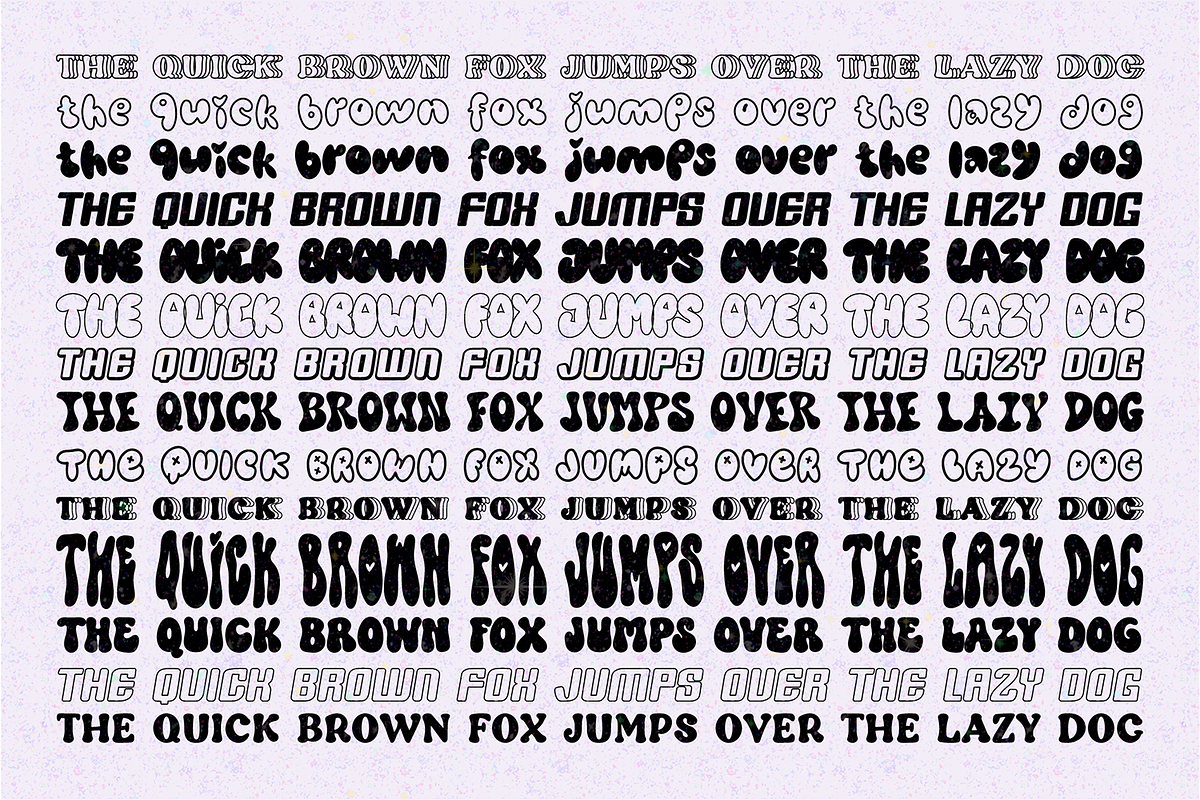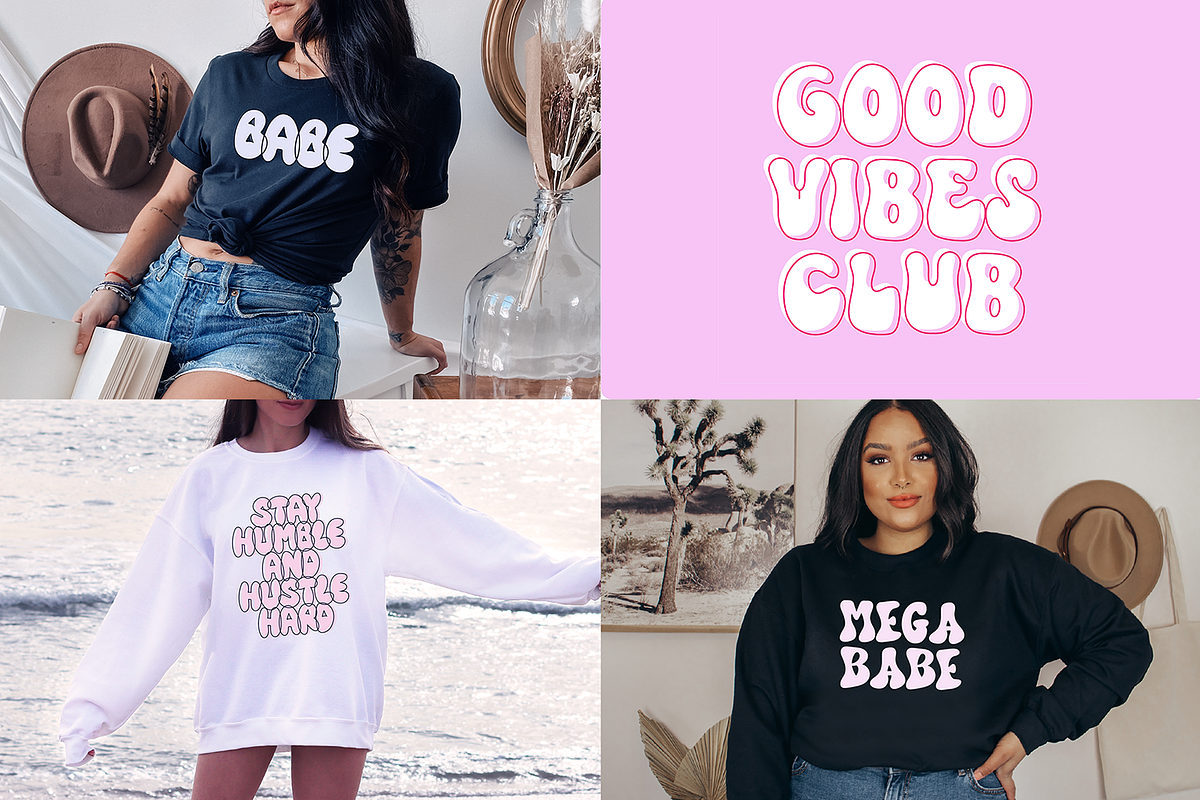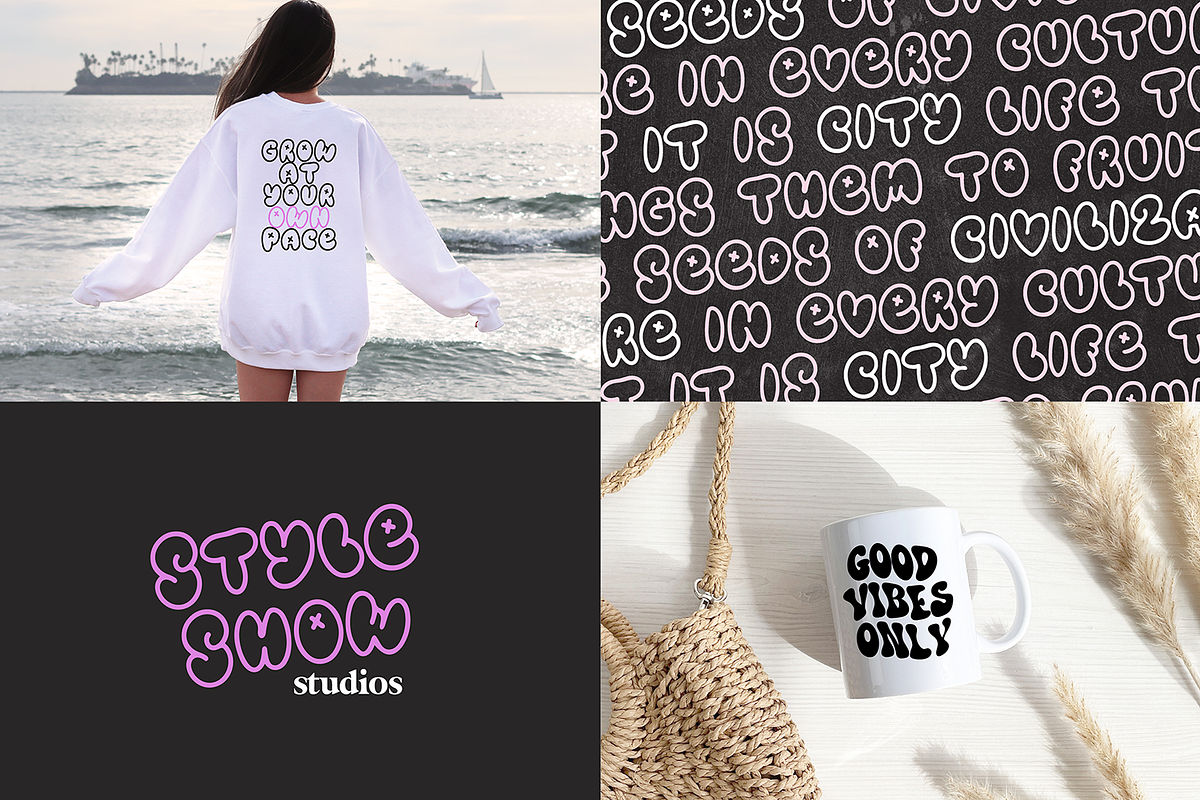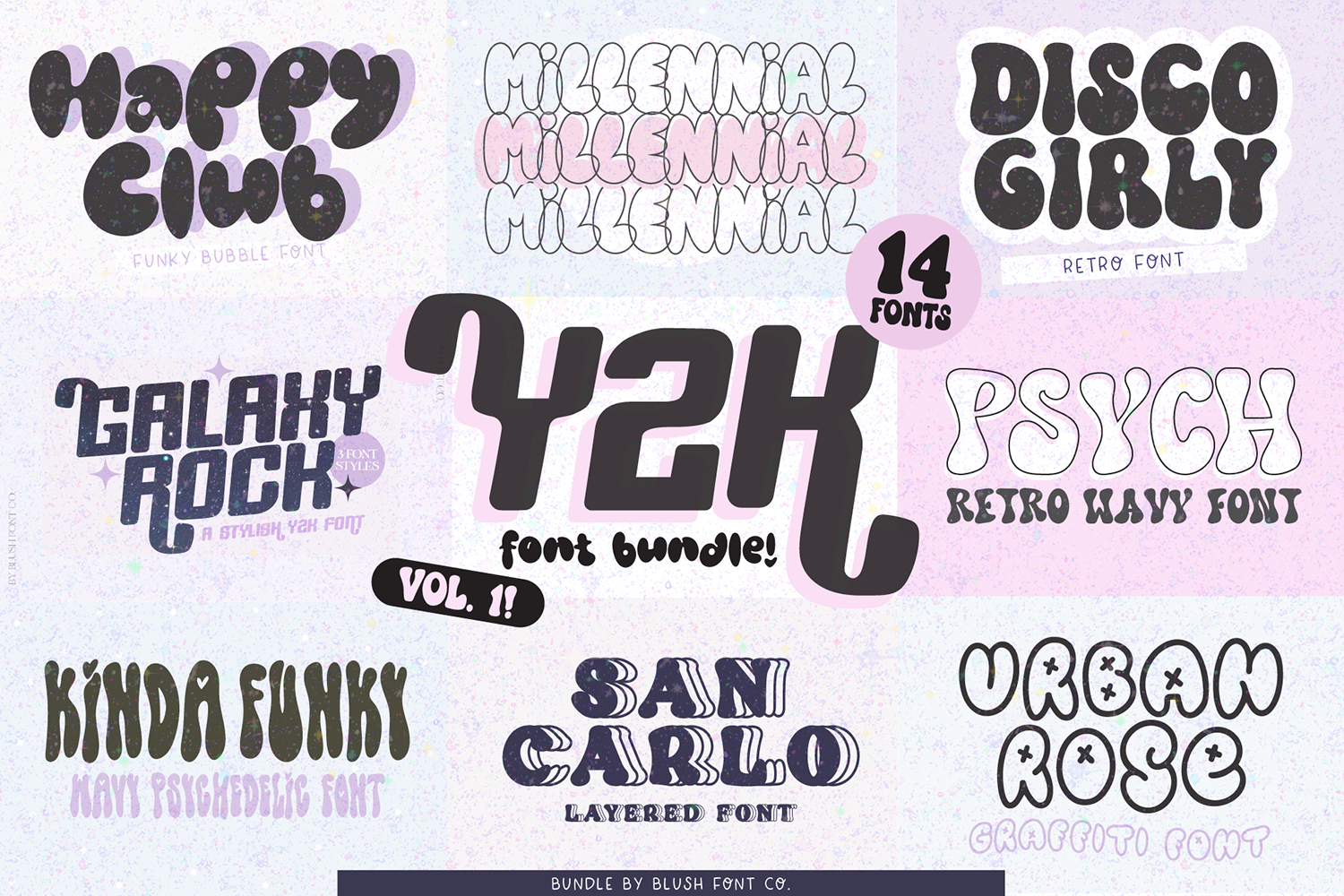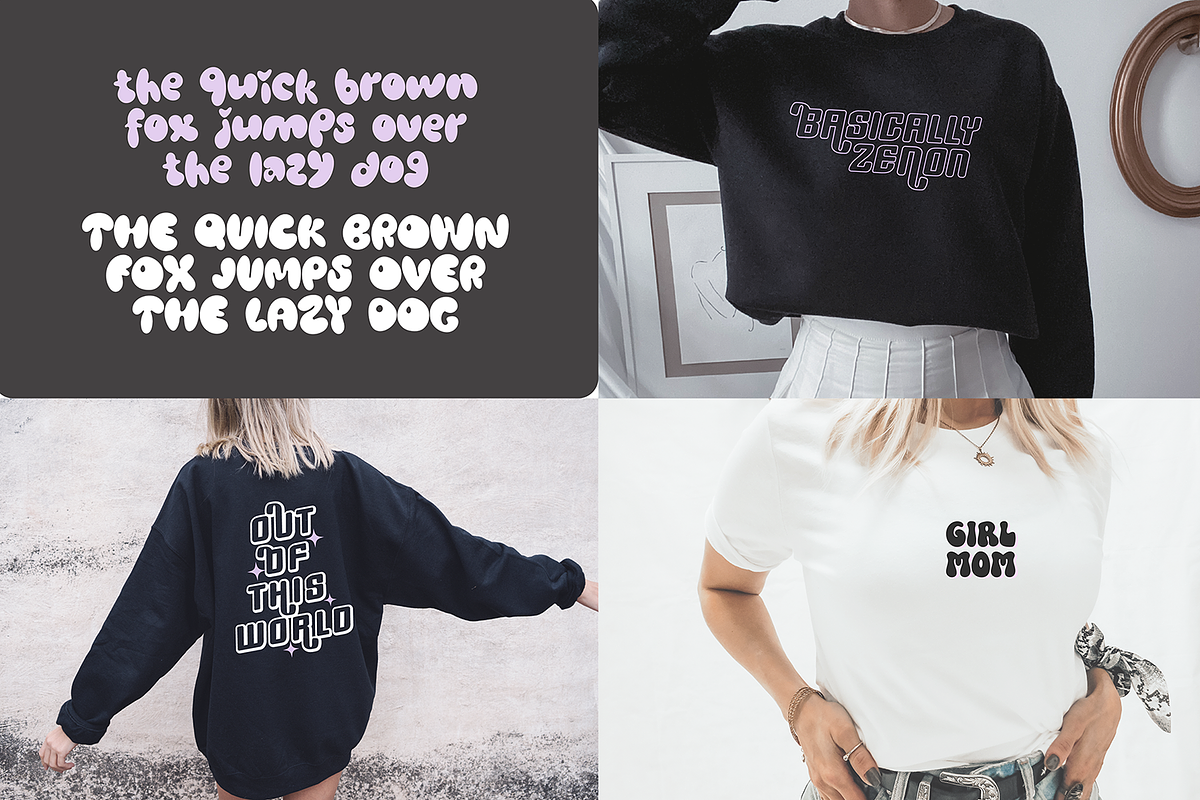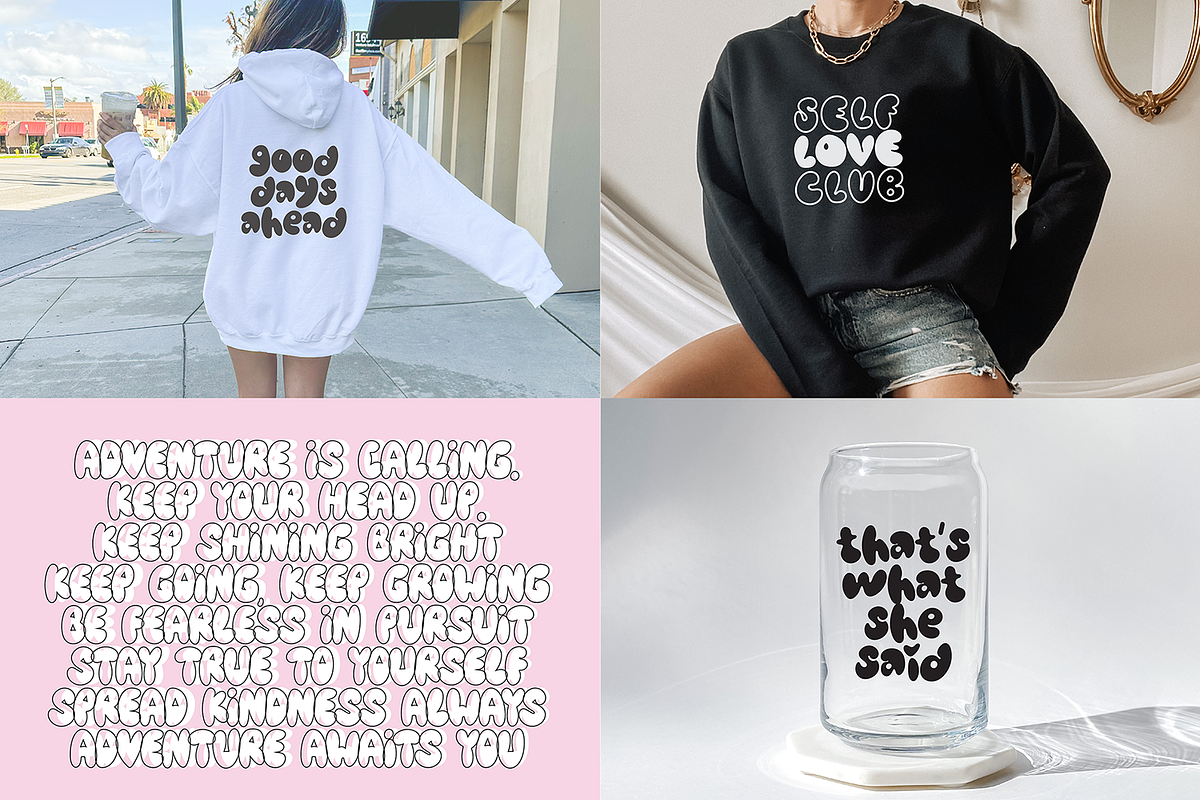
Y2K FONT BUNDLE-Stylish Retro Fonts
Y2K Font Bundle Vol 1- Retro Font Bundle 14 fonts! 8 new fonts with the extra versions included.
This font bundle is full of style! If you are loving the throwback Y2K aesthetic - These are perfect for you! Use for, t-shirt design, social media, Procreate, and more!